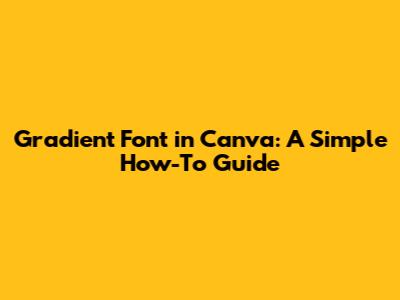
- Find a Gradient Image: Start by searching for a suitable gradient image. You can find free gradient images on websites like Unsplash, Pexels, or Pixabay. Alternatively, you can create your own gradient image using a tool like Adobe Photoshop or a free online gradient generator. Ensure the gradient image has the colors and transitions you desire for your font.
- Upload the Image to Canva: Once you have your gradient image, upload it to Canva. Go to the “Uploads” tab on the left-hand side of the Canva interface and click “Upload media.” Select the gradient image from your computer and wait for it to upload.
- Add Text to Your Design: Next, add the text you want to apply the gradient to. Click on the “Text” tab and choose a text style. Type in your desired text and adjust the font, size, and style to your liking. For the best results, use a bold font as it will showcase the gradient more effectively. Remember to choose a font that is both readable and visually appealing for your project.
- Position the Gradient Image: Place the gradient image onto your design and position it behind the text. You might need to resize and adjust the image to ensure the gradient aligns correctly with your text. Right-click on the image and select “Send to Back” to ensure the text is always on top.
- Use the Text as a Mask: This is where the magic happens. Select both the text and the gradient image. Then, group them together by clicking the "Group" button on the toolbar. With the group selected, adjust the position of the gradient image behind the text until you achieve the desired gradient effect within the letters. Experiment with different positions to see how the gradient changes within the text.
- Fine-Tune Your Design: Once you have the basic gradient effect, fine-tune your design by adding additional elements, adjusting the background color, or adding shadows to make the text stand out even more. Play around with different effects and adjustments until you achieve the perfect look for your project.
- Add Your Base Text: Start by adding your desired text to the Canva design. Choose a font, size, and style that fits your project. Duplicate this text layer several times – typically, you'll want at least three to five layers to create a smooth gradient effect. The number of layers depends on how subtle or dramatic you want the gradient to be.
- Change the Color of Each Layer: Now, change the color of each text layer to create the gradient effect. Start with the top layer and choose your starting color. Then, for each subsequent layer, select a color that gradually transitions towards your desired end color. For example, if you want a gradient from blue to green, you might use shades like dark blue, medium blue, light green, and dark green.
- Position the Layers: Carefully position each text layer on top of each other. Start by aligning all the layers perfectly. Then, nudge each layer slightly to create a subtle offset. This offset will allow the different colors to peek through and create the gradient illusion. Use the arrow keys for precise adjustments, and zoom in to ensure the layers are aligned as closely as possible without completely overlapping.
- Group the Layers: Once you’re satisfied with the positioning, group all the text layers together. This will make it easier to move and resize the entire gradient text element without losing the alignment. Select all the layers and click the “Group” button on the toolbar.
- Add Effects and Adjustments: To enhance the gradient effect, consider adding effects like shadows or outlines to the text. A subtle shadow can help separate the layers and make the gradient more pronounced. Experiment with different effects and adjustments until you achieve the desired look. You can also adjust the transparency of each layer to fine-tune the color blending.
- Search for Gradient Elements: Start by exploring Canva’s element library. Use keywords like “gradient shapes,” “gradient backgrounds,” or “gradient designs” to find elements that feature the colors and transitions you’re looking for. Look for elements that have a smooth color transition and are visually appealing.
- Choose Suitable Elements: Select elements that can be easily adapted to form letters or parts of letters. Geometric shapes like rectangles, circles, and triangles are particularly useful. Look for elements that can be rotated, resized, and combined to create the desired letterforms.
- Construct Your Letters: Use the selected elements to construct each letter of your text. This might involve combining multiple elements, rotating them, and resizing them to fit together. Think of it like building with LEGOs – you’re using individual pieces to create a larger structure. Pay attention to the overall shape and proportion of each letter to ensure they look cohesive and readable.
- Arrange and Align the Letters: Once you’ve constructed all the letters, arrange them to form your desired text. Pay attention to the spacing between the letters to ensure readability. Use Canva’s alignment tools to ensure the letters are properly aligned and spaced.